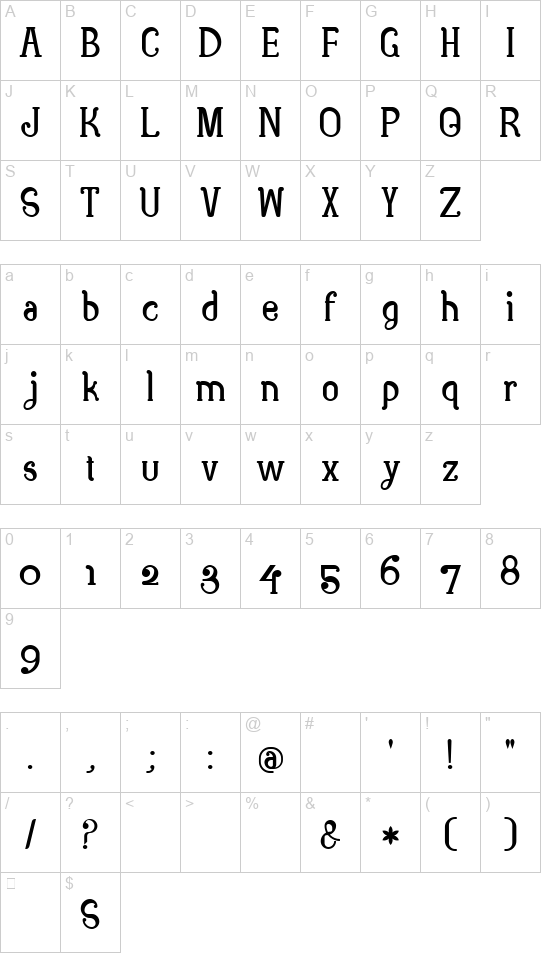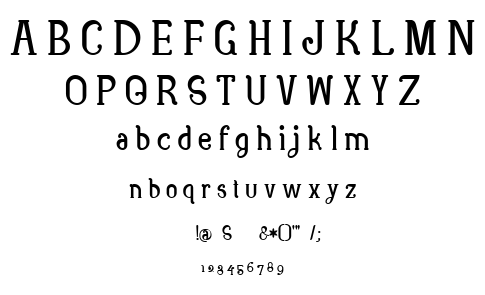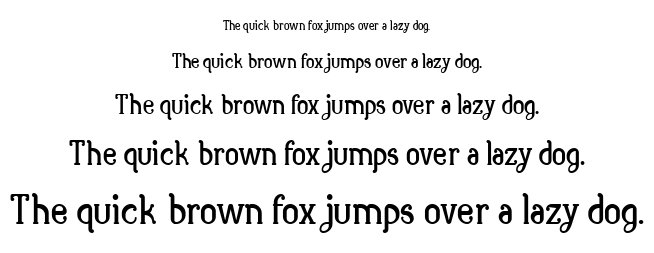
Pavo Royal is an experiment. As a typography fan—not a typographer— I have always wanted to design a typeface but didn’t know what to do when the programing part came and all the “complicated” stuff that goes along with it. So this is my first typeface (of many I hope). I made it to be a display type but i think it works fine in copy.
The basic form of each glyph was made with rectangles and then I substracted parts using circles to smooth it. It has standard and discretionary ligatures and because of its irregular counterforms, in smaller sizes it has a woodtype feel to it (the way I see it).